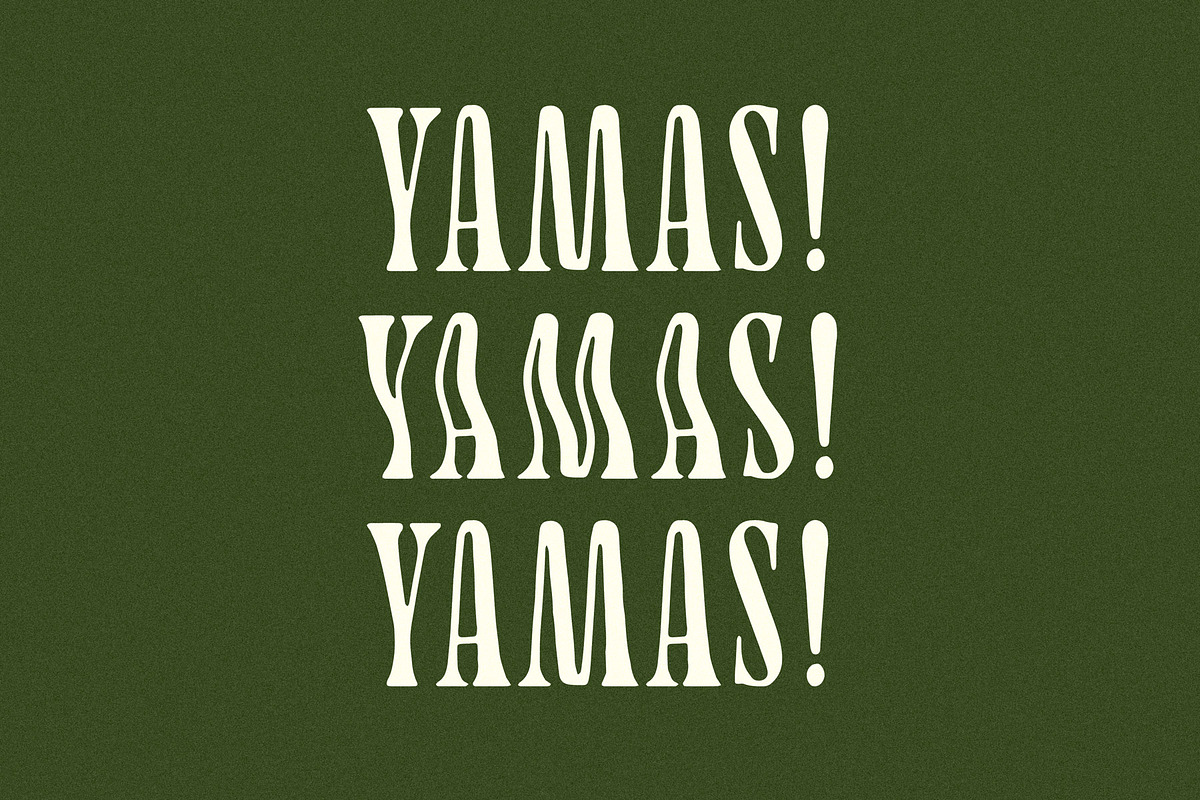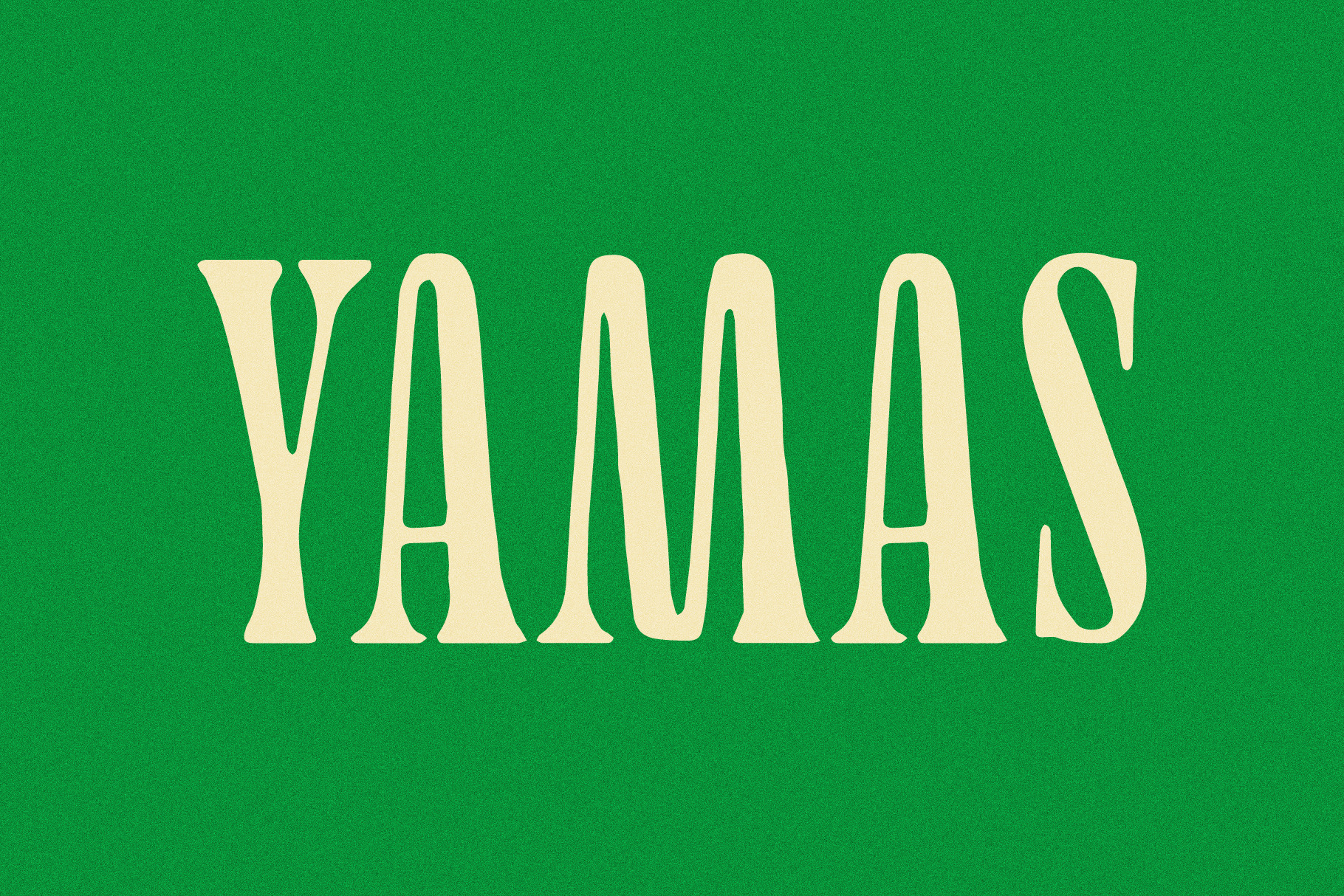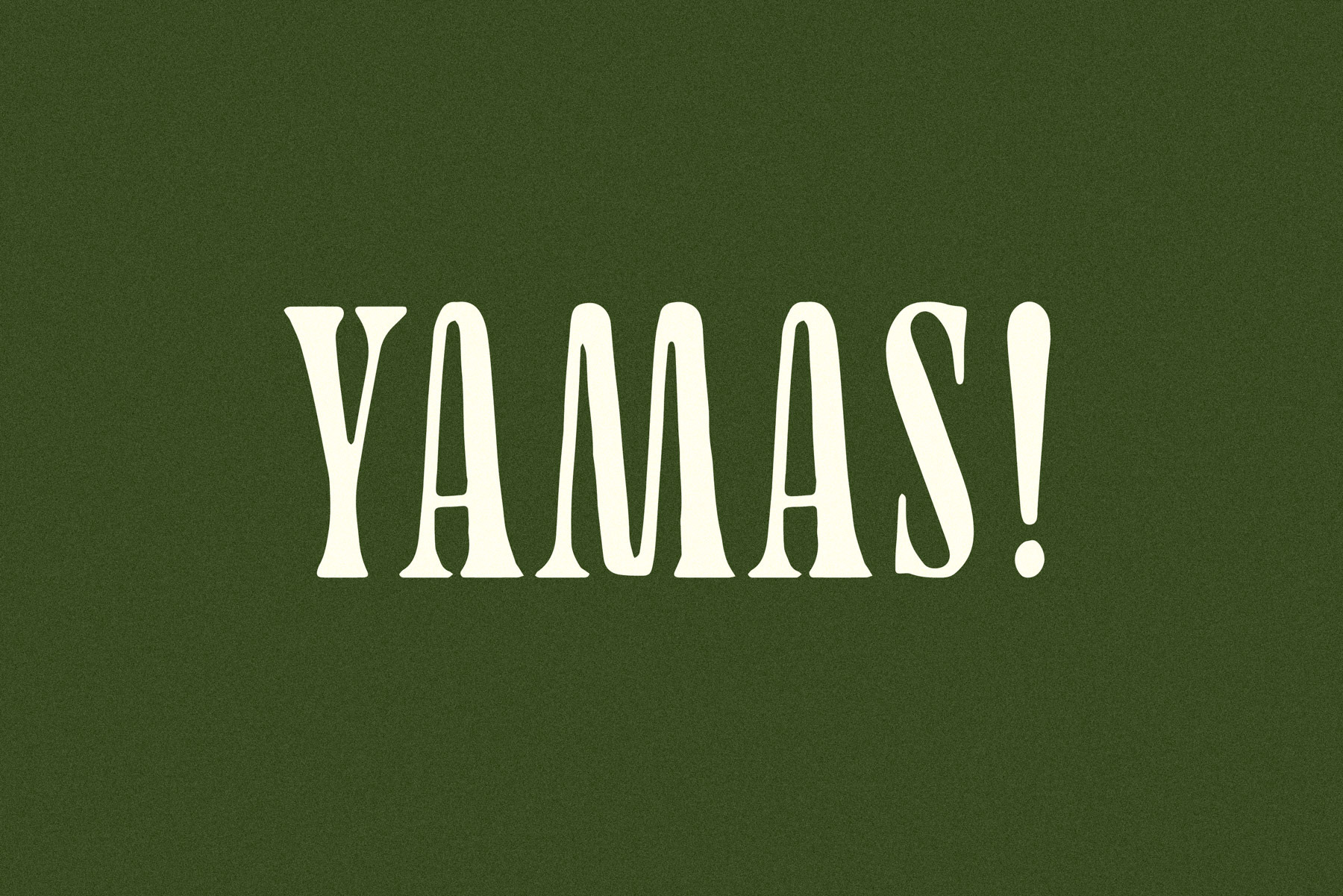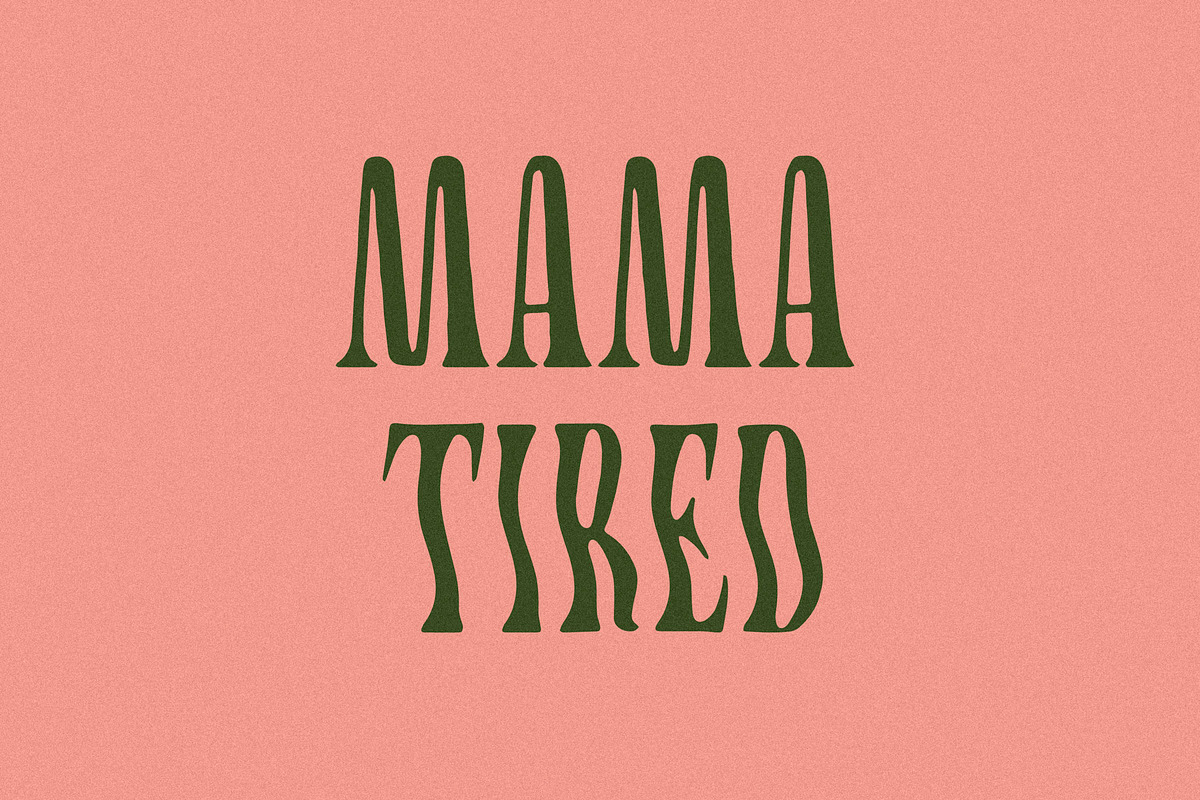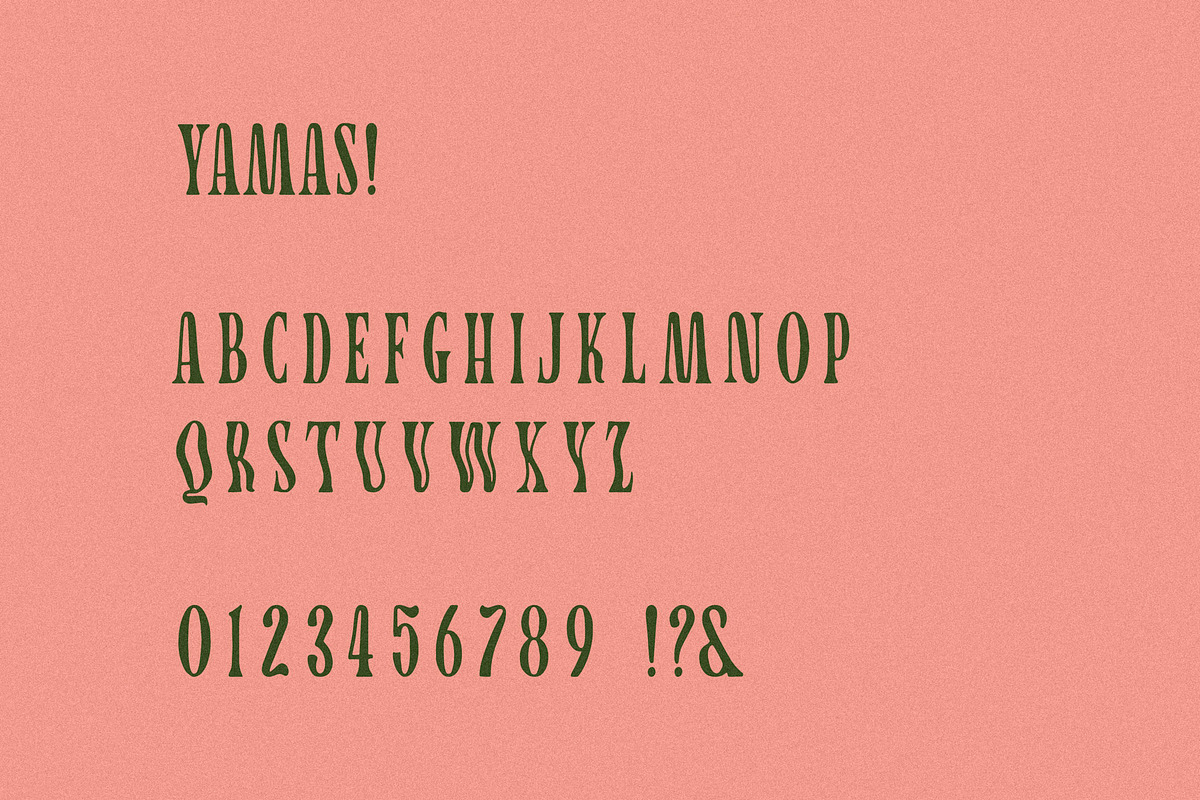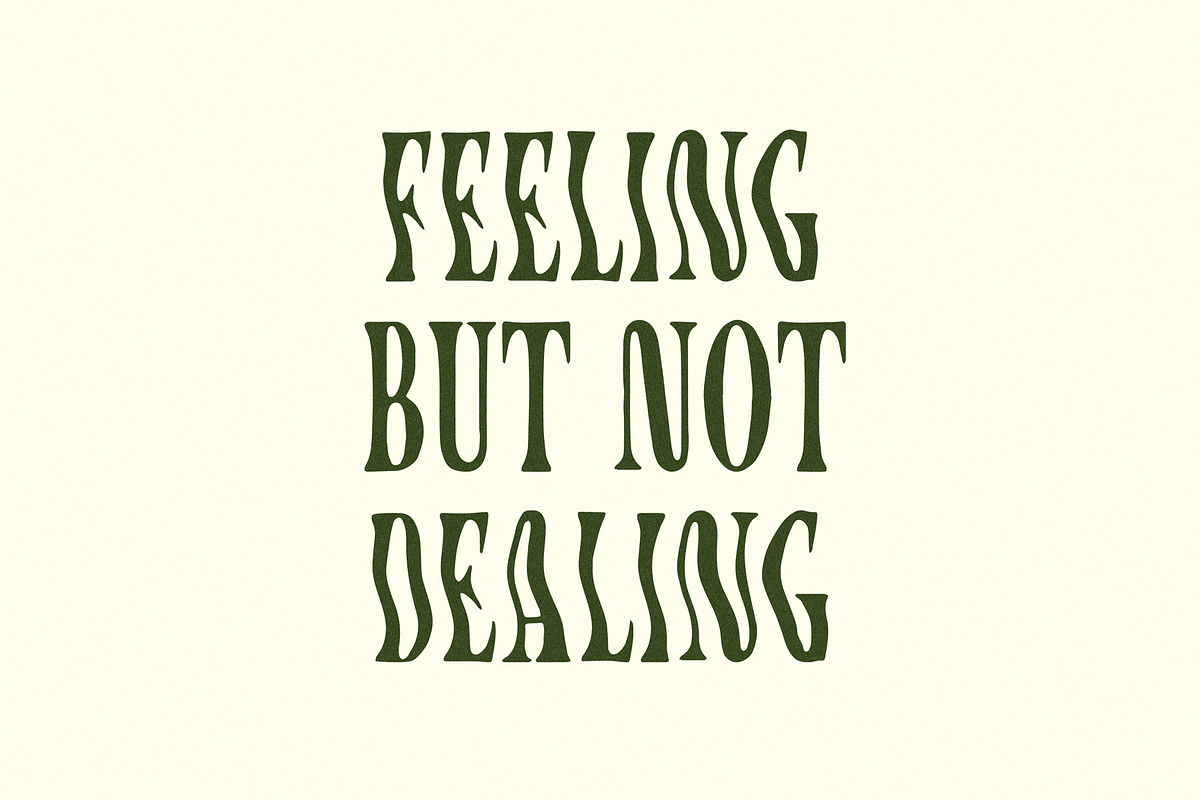
Yamas | A Soft Modern Serif Font
Yamas! is a soft, high-contrast typeface with a subtle wobble and a little charm baked in.
Press Shift for the wavy alternates — because sometimes straight lines just aren’t the vibe. Hand-drawn (with the same song on loop for days), and one of the most downloaded fonts in the shop for a reason.